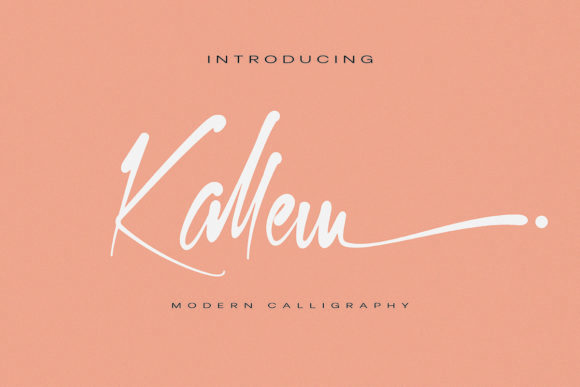
Embark on a typographic odyssey with Kallem Font, the enchanting script font that weaves a spellbinding narrative of elegance and modernity. Sculpted with meticulous care by the visionary font artist khaiuns, Kallem Font is poised to become your steadfast companion in the realm of digital design, propelling your projects to unparalleled heights of visual allure.
As a script font, Kallem Font possesses an innate charm and sophistication that evokes the grace of handwritten calligraphy, yet it retains a distinctly contemporary spirit, ensuring its relevance in the ever-evolving landscape of digital aesthetics. Its flowing lines and delicate curves dance across the screen, captivating the eyes with their inherent beauty and refinement.
Delve into the depths of Kallem Font's versatility, and discover a font that seamlessly adapts to a myriad of creative endeavors. Whether you seek to craft captivating logos that exude elegance, design eye-catching social media graphics that demand attention, or produce stunning website layouts that leave a lasting impression, Kallem Font stands ready to meet your every need.
With Kallem Font as your trusted ally, you gain access to a treasure trove of typographic possibilities. Unleash your creativity and compose headlines that command attention, craft body text that invites readers into your narrative, and forge visual identities that resonate with your audience on a profound level.
Kallem Font is more than just a font; it's an artistic expression that breathes life into your digital creations. Its carefully crafted characters possess a unique personality, capable of transforming ordinary words into captivating narratives. Watch as your designs transcend the boundaries of the mundane and enter the realm of the extraordinary.
As a font meticulously designed for the modern web, Kallem Font is fully optimized for digital display, ensuring crisp and vibrant rendering across diverse platforms and devices. Its versatility extends to a wide range of applications, from web design and graphic design to social media marketing and branding.
Join the ranks of discerning designers who have embraced Kallem Font as their secret weapon for creating captivating digital experiences. Let your imagination soar as you witness the transformative power of this extraordinary font, turning your creative visions into tangible masterpieces.